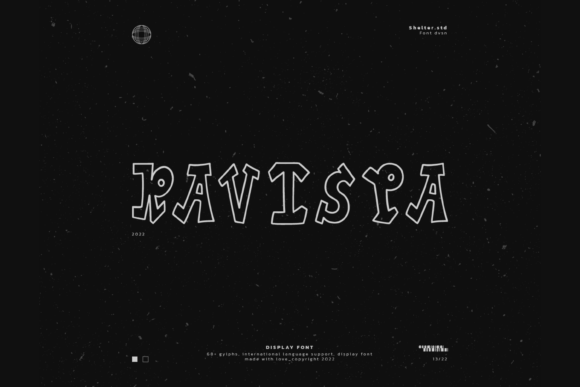
Step into the world of visual expression with Ravispa, the display font that sparks joy and captivates hearts. A creation of inferno.type3, Ravispa is a whimsical and playful font that embodies the spirit of creativity and lightheartedness. With its unique character and a splash of quirkiness, Ravispa is the perfect font to brighten up your designs and add a touch of cheer to your projects.
Unleash your imagination and let Ravispa take your designs to new heights. Its charming curves and distinctive letterforms will add a touch of personality and playfulness to your creations. Whether you're designing logos, posters, social media graphics, or crafting eye-catching headlines, Ravispa is the font that will make your designs shine.
Make a bold statement with Ravispa's confident strokes and captivating presence. Its playful nature invites interaction and engagement, making it an ideal choice for button text. Entice your audience with buttons that beckon them to click, explore, and discover the wonders your website or application holds. Ravispa's ability to capture attention effortlessly makes it the perfect font for grabbing eyeballs and driving conversions.
With Ravispa, the possibilities are endless. Its versatility extends far beyond button text. Incorporate it into your branding materials, such as logos, business cards, and letterheads, to create a cohesive and memorable brand identity that resonates with your audience. Use it to craft stunning posters and flyers that demand attention and leave a lasting impression. Let Ravispa ignite your creativity and transform your designs into captivating masterpieces.
At its core, Ravispa is more than just a font; it's an expression of joy, creativity, and individuality. Its playful spirit has the power to evoke positive emotions and create a sense of connection with your audience. Download Ravispa today and embark on a journey of visual storytelling that will captivate hearts and leave a lasting impact.